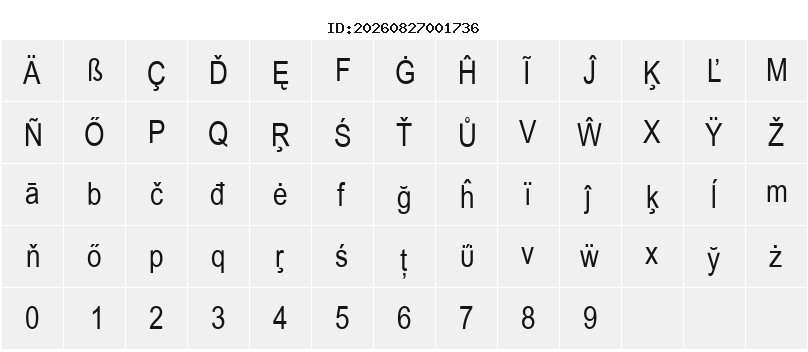
978-CAI978 Preview
• Font Name: 978-CAI978
About 978-CAI978.ttf
978-CAI978.ttf is a modern, elegant sans-serif font designed for ultimate readability and visual harmony. Perfect for branding, headlines, web design, and print materials.